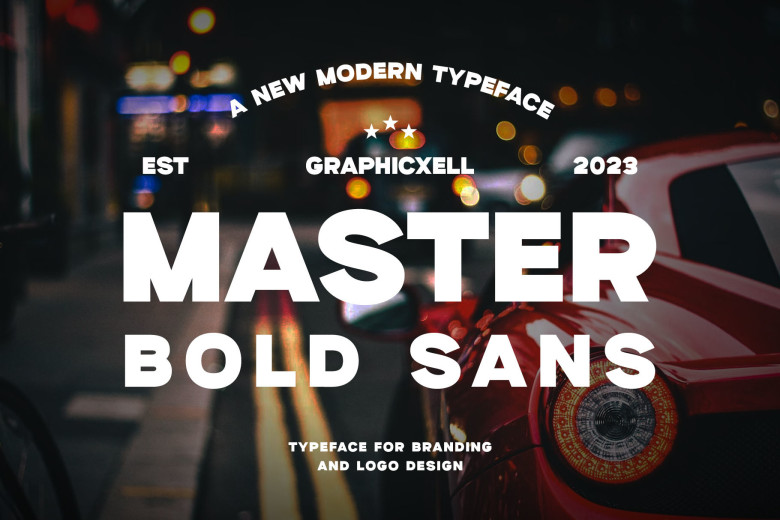
Master Bold Sans Font
Master Bold Sans Font is the perfect look for giving life to your design project, modern and full of energy it has crisp delineations and a resolute style which stands out. Its adaptability means that it can be put to use in any number of design projects.